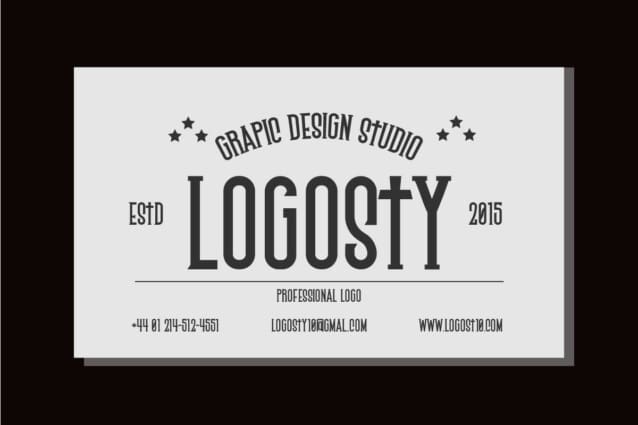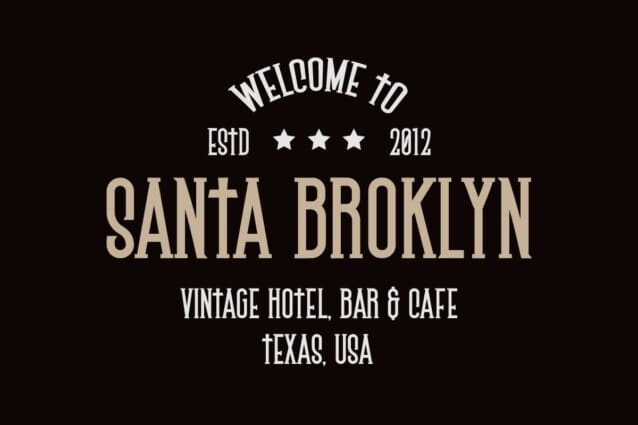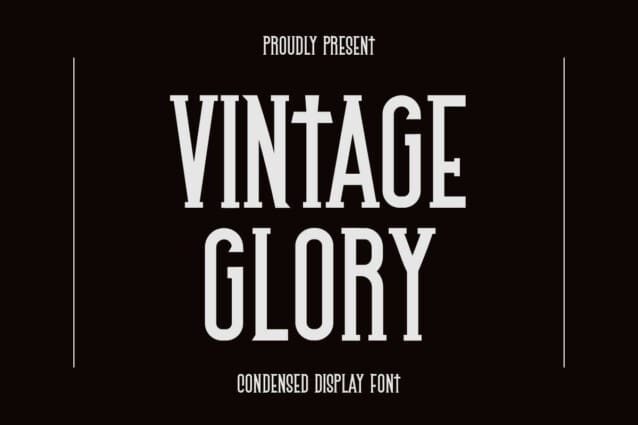
Vintage Glory Font
Vintage Glory Font is a simply serif font. It is suitable for logotypes, headlines, corporate identity, brand identity, apparel industry, posters, music, movies, games, magazines or any of your creative design projects.